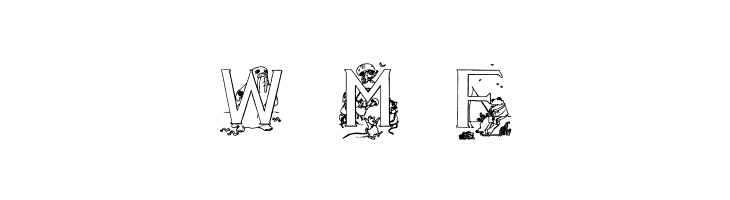
A bold, brush-textured font with dynamic, jagged strokes.
A playful, handwritten font with dynamic strokes and a whimsical style.
Cartoon school-themed illustrative font with characters made from playful scenes.
A futuristic, angular font with a sleek and modern design.
A whimsical and decorative font with intricate swirls and flourishes.
A bold, decorative font with a shadow effect and intricate flourishes.
A bold, decorative font with a playful yet structured design.
Sketch-style font featuring ballet dancer illustrations as characters.
A playful font with numbers styled as inflated balloons, perfect for festive designs.
A decorative font styled like barbed wire, offering a rugged and edgy appearance.
A bold, decorative font with a unique striped pattern for a modern, impactful look.
A pixelated, monospaced font with a retro digital aesthetic.
A Gothic-style font with sharp, angular lines and ornate detailing.
A decorative font with playful symbols and bold arrows.
A bold, geometric, and abstract font with a modern artistic flair.
A bold, dramatic blackletter font with intricate, ornate letterforms.
A whimsical, decorative font with playful, abstract beard-faced characters.
A display font composed of illustrated human faces for each character.
A bold, modern sans-serif font with a tall, condensed style.
A bold, modern sans-serif font with a condensed and geometric style.
A display font made of fitness-themed human silhouettes.
An illustrative and decorative font composed of detailed images instead of traditional characters.
A bold, geometric font with tight spacing and a modern, edgy style.
A bold, geometric font with a blocky, monospaced appearance.
Ornate pictorial font featuring biblical and angelic illustrations.